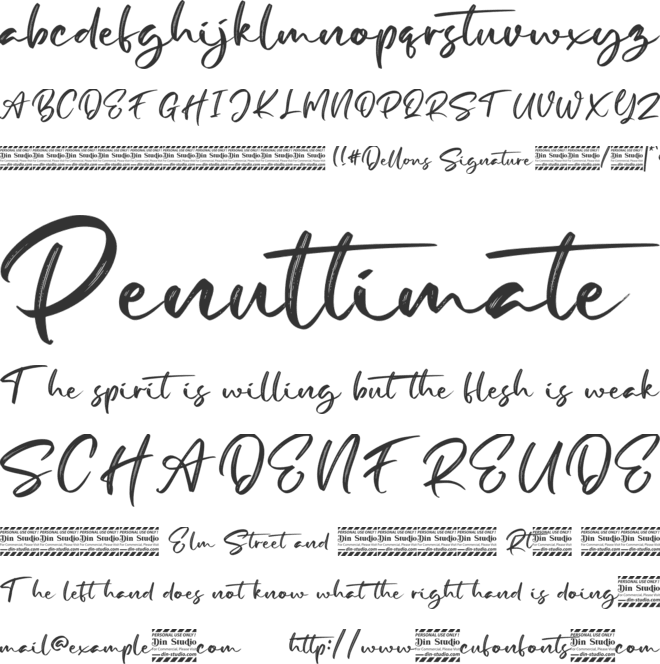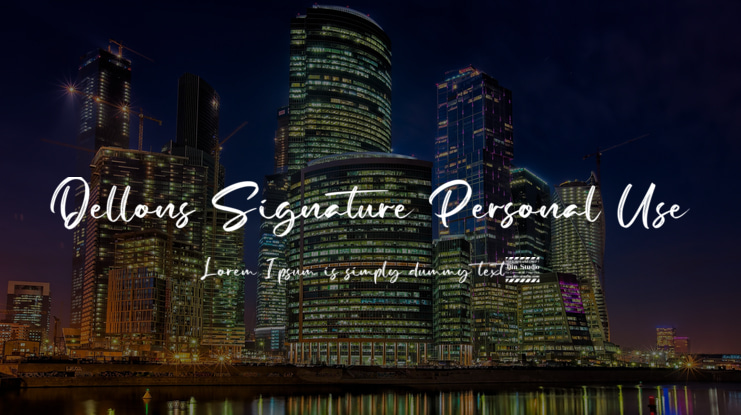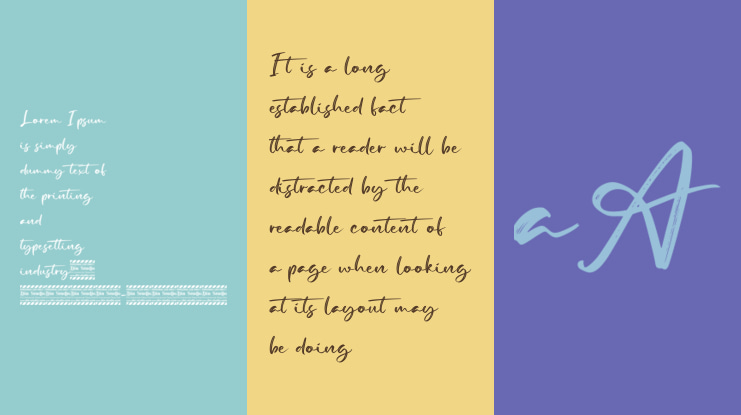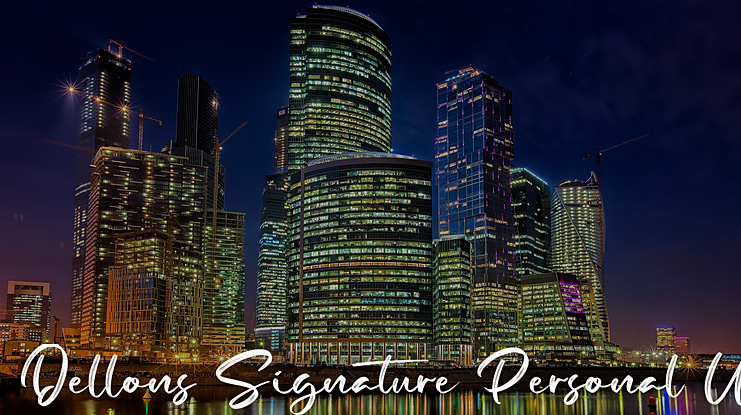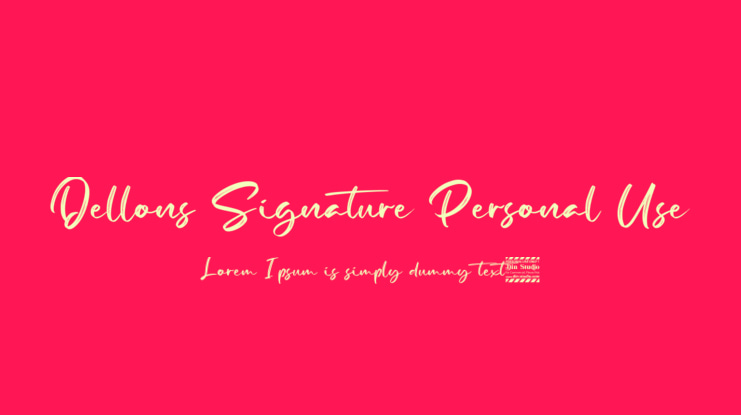
Dellons Signature Personal Use Font
Dellons Signature is a elegant brush font. Combined with brush textured handwritten will make your design project more special. Made for any professional project branding. It is the best for logos, branding and quotes. Every letter has a unique and beautiful touch.